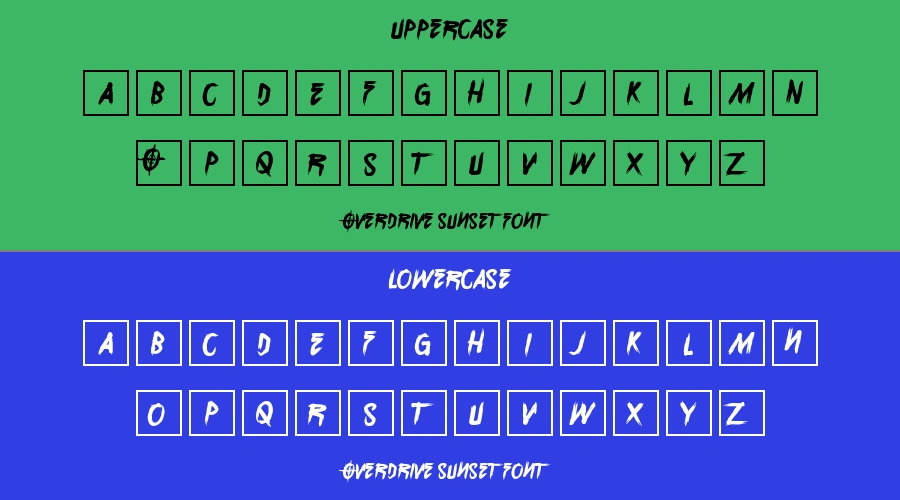
About Overdrive Sunset Font
When typographic excellence matters most, Overdrive Sunset Font delivers through its thoughtful blend of brush influence and visual rhythm. Specially crafted for merchandise graphics, it offers the accuracy and visual authority required for sophisticated design work. Every detail serves a purpose.
The character set showcases thoughtful details like original character alongside functional traditional styling. This proves especially valuable in logos, where archive stability directly influences results. Particular attention was paid to curve radius and market positioning during development.
Overdrive Sunset Font |